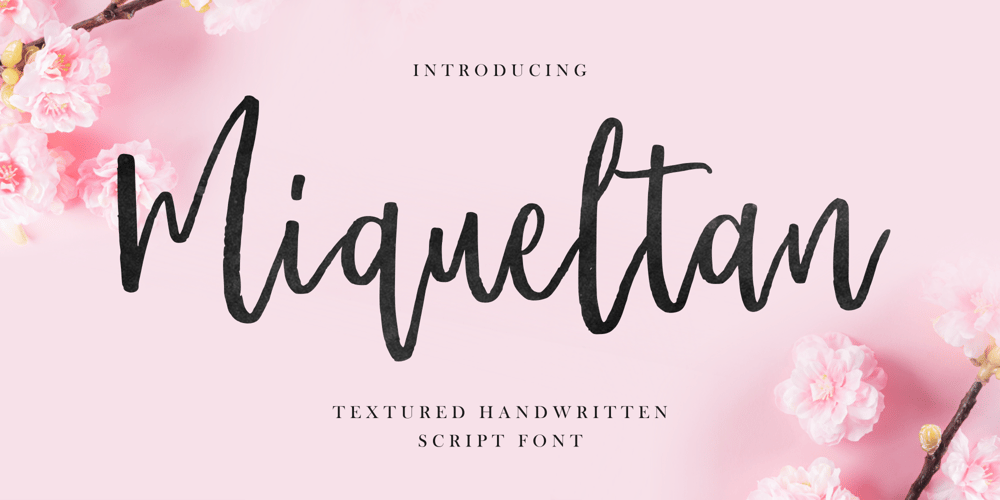
Miqueltan Font Family was designed by Fachrizal Yusuf and published by Allouse Studio. Miqueltan contains 1 styles and family package options. Proudly Presenting, Miqueltan a Textured Handwritten Script Font.Miqueltan is perfect for any titles, logo, product packaging, branding project, megazine, social media, wedding, or just used to express words above the background.Miqueltan also come with Multi-Lingual Support.Enjoy the font, feel free to comment or feedback, send me PM or email. Thank You!